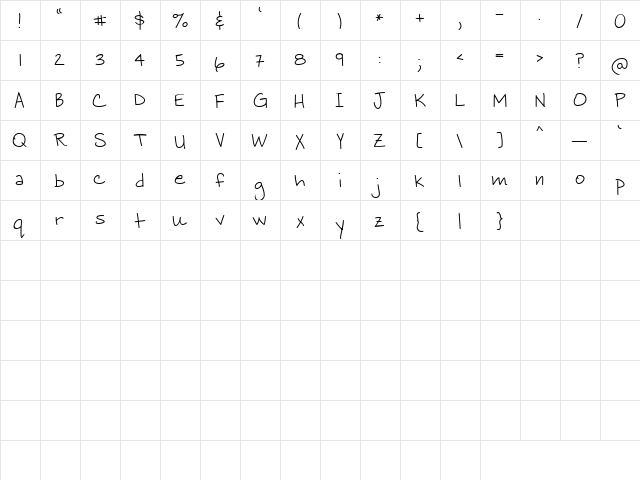
LD Fine Print 17 Regular
LD Fine Print 17 is a composed and adaptable typeface that performs quietly and consistently across a wide range of design contexts.